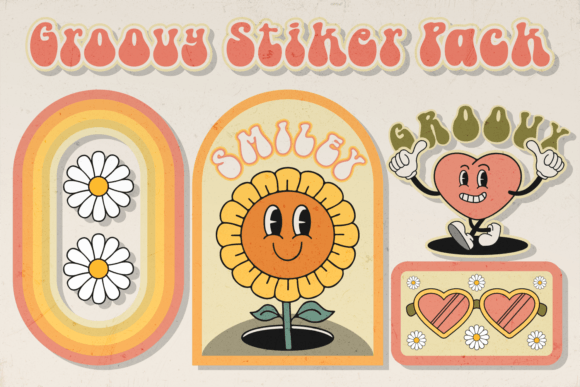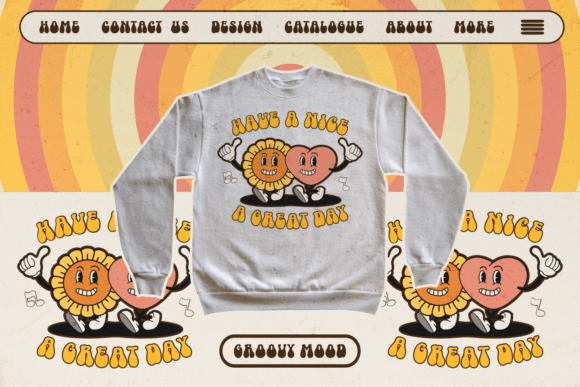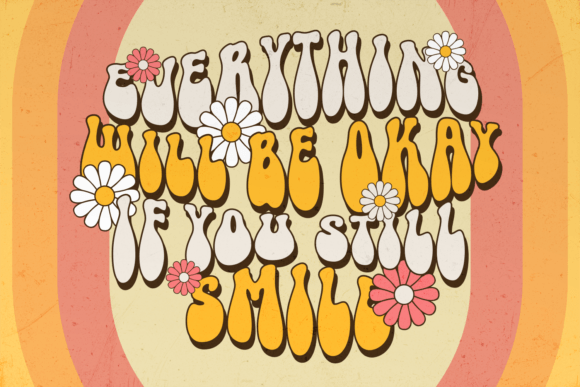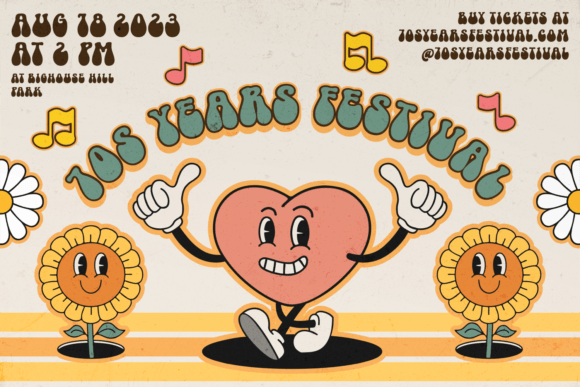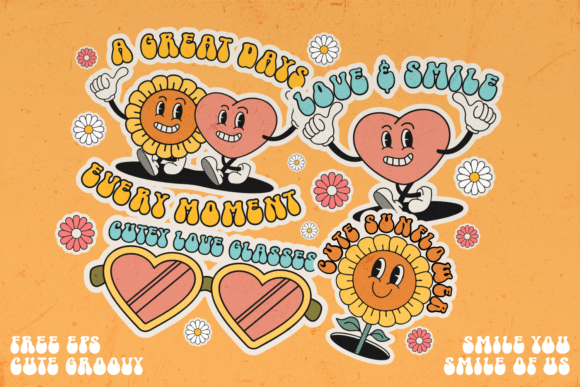
Have you ever been stuck in a creative rut, struggling to find the perfect font to bring your vision to life? We’ve all been there, pouring over font libraries, searching for that elusive spark that sets our designs apart. For designers looking to infuse their work with a sense of nostalgia and romance, the Groovy Mood Font is here to save the day.
This stylish and versatile font is designed to add a touch of elegance and whimsy to any project. Whether you’re creating a stunning greeting card, crafting a captivating headline, or simply looking to elevate your brand’s visual identity, the Groovy Mood Font is the perfect addition to your toolkit.
Groovy Mood Font Key Features
- Font Family: Groovy Mood is a unique, hand-drawn sans-serif font designed to evoke a carefree and playful mood.
- Character Count: The Groovy Mood font family consists of 300+ glyphs, including a wide range of punctuation marks, numerals, and special characters.
- Unique Characteristics: Groovy Mood features a distinctive, hand-drawn feel, with subtle irregularities and imperfections that give it a unique, human touch.
Groovy Mood Font Review
I recently had the chance to work with the Groovy Mood Font, and I have to say it’s a mixed bag. ✨ Here are some things that work well:
- Unique aesthetic: The font has a distinctive, retro vibe that’s perfect for projects that need a laid-back, groovy feel.
- Playful tone: The font’s playful tone makes it a great choice for projects that need a lighthearted, whimsical touch.
- Good for display text: The font is particularly well-suited for display text, such as headings and titles.
However, there are also some limitations to consider: ⚠️
- Limited legibility: The font can be a bit difficult to read at smaller font sizes, which may limit its use in certain contexts.
- Not ideal for body text: While the font is great for display text, it may not be the best choice for body text, where readability is more important.
- May not be suitable for formal projects: The font’s playful tone may not be suitable for formal projects or those that require a more professional tone.
Overall, I’d say the Groovy Mood Font is a fun, quirky font that’s perfect for certain types of projects. However, it may not be the best choice for every project, and its limitations should be carefully considered.
The Groovy Mood Font is perfect for:
- Creating eye-catching social media posts and ads.
- Designing flyers and brochures for events and promotions.
- Adding a playful touch to presentations and documents.